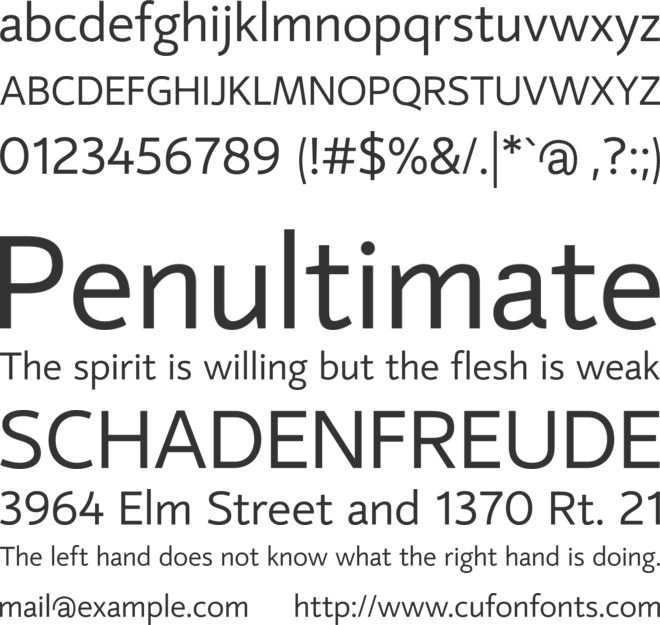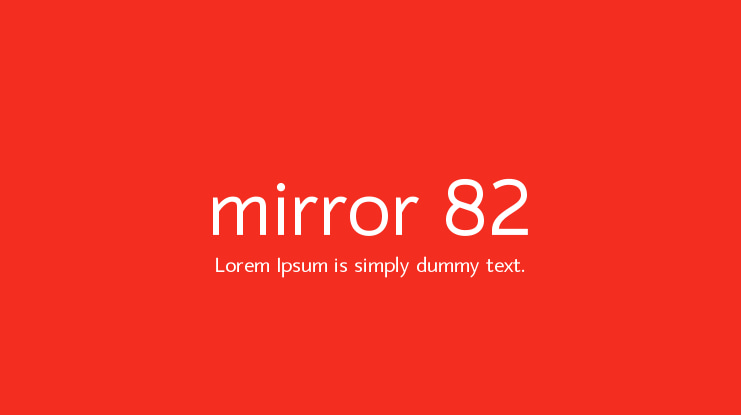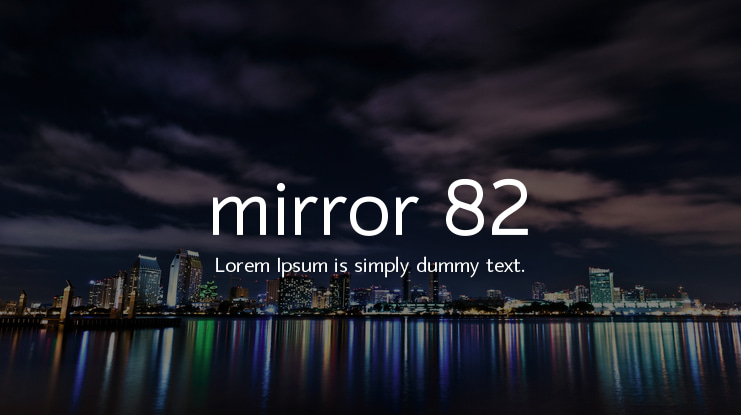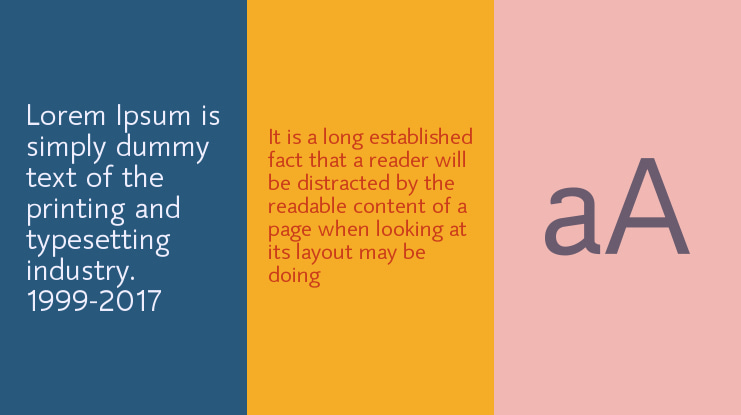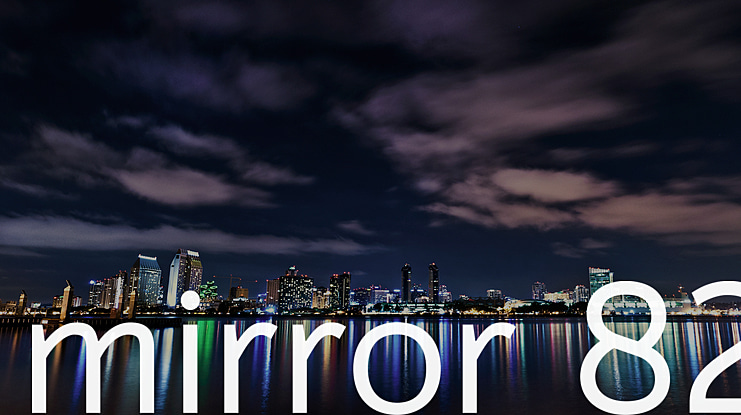
mirror 82 Font
Igor Kosinsky
Mirror 82 is a free simplae and clean sans serif font. It contains uppercase and lowercase letters, numbers and symbols, ligatures, supports multilanguage, including Latin and Cyrillic languages.